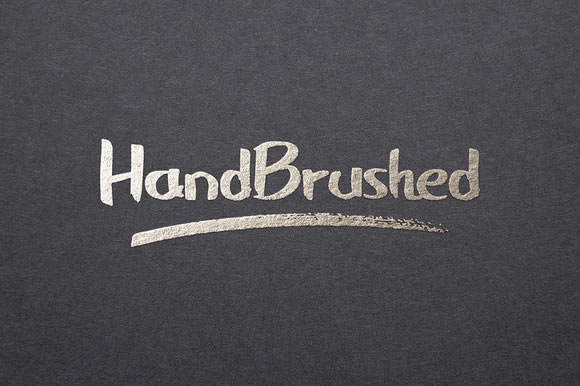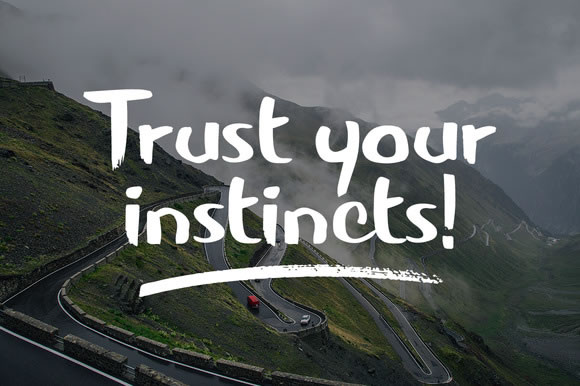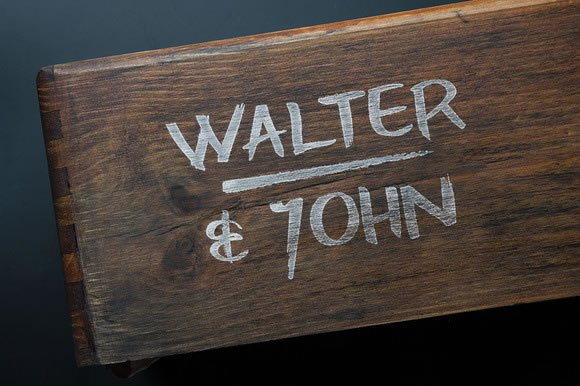
About Handbrushed Font
The regular version of handbrushed is for the font, the other one for the additional swashes. This makes it easy to mix and match without needing additional tools. Handbrushed is a brush based font that comes in a sans serif style.
It features:
Uppercase characters
Lowercase characters
Numbers & Glyphs
The Handbrushed font is completely designer by hand using a brush. It took about 60-70 A4 sheets, a black thick brush and coffee. Loads of coffee!